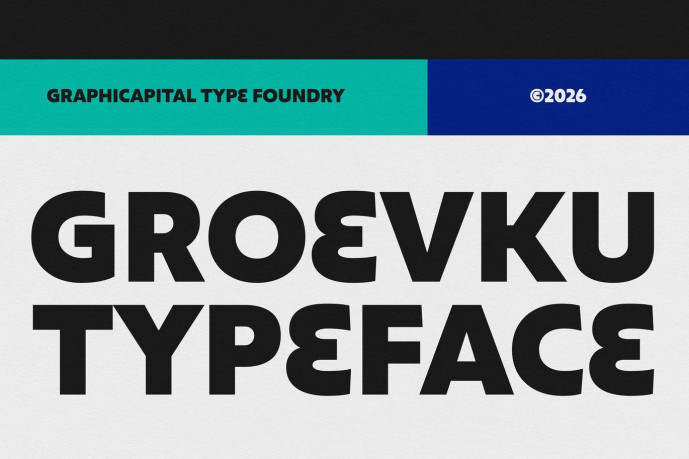
Groevku Font
Designer: Graphicapital
Groevku is a bold geometric sans-serif display font with strong, clean forms and excellent legibility at large sizes. Its modern, futuristic character makes it ideal for headlines, main visuals, and designs that require a powerful visual identity.
Ideal for branding, posters, headlines, packaging, album art, game visuals, and promotional designs. It adds personality to any creative project and helps your message stand out effortlessly.